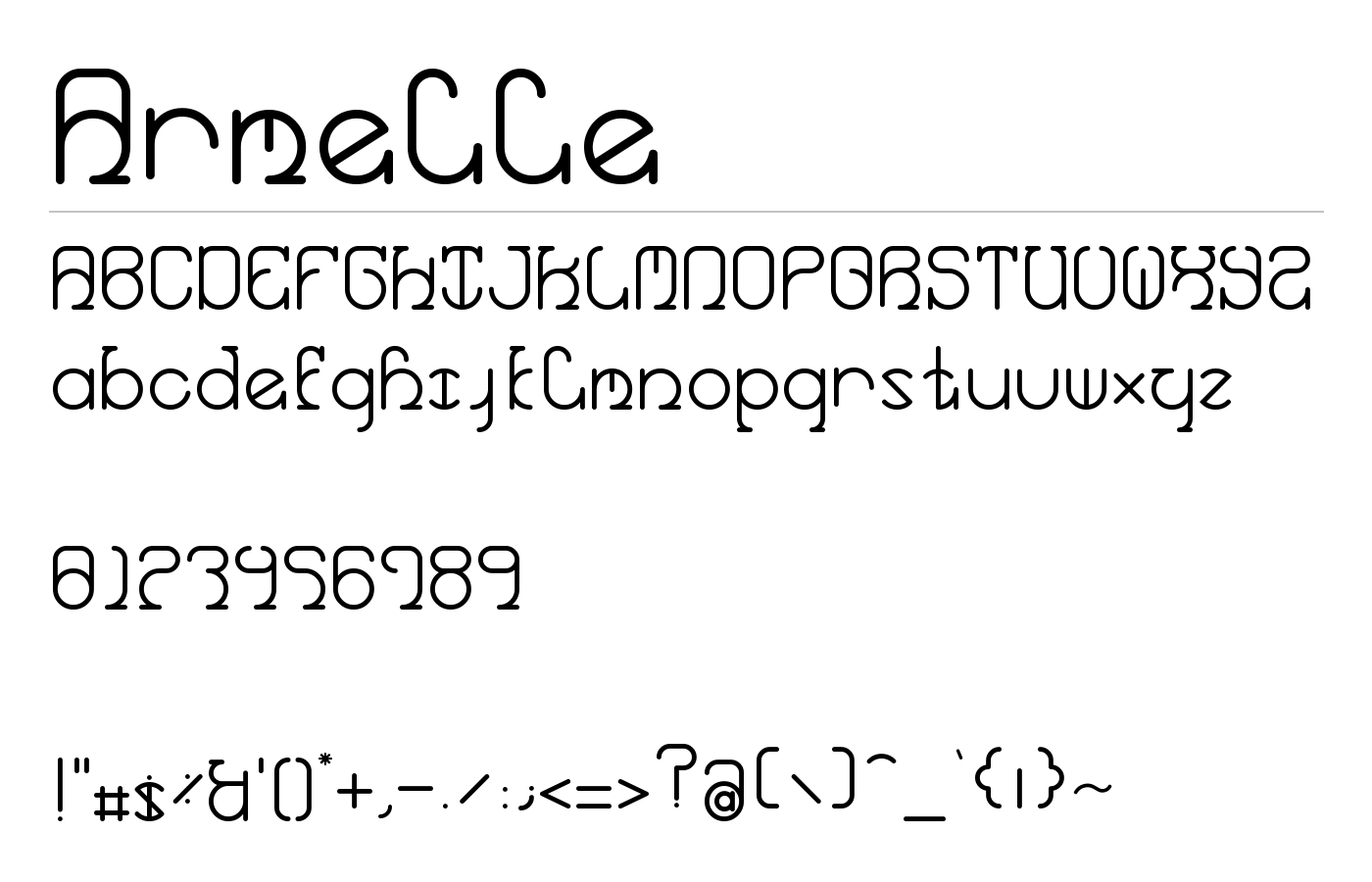
Armelle is a modern sans serif font with a distinctively geometric and experimental style, featuring rounded corners and unique, artistic letterforms that blend soft curves with minimal stroke contrast. Its playful yet sophisticated personality makes it ideal for creative branding, contemporary editorial projects, and eye-catching logos that seek a blend of elegance and innovation. This font stands out in headlines and display uses, offering a fresh and memorable visual impact.
Armelle Font
About Armelle Font